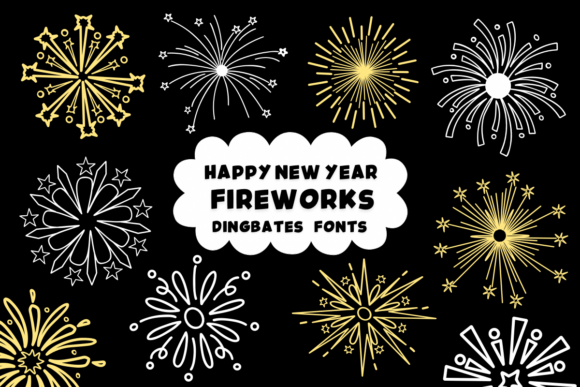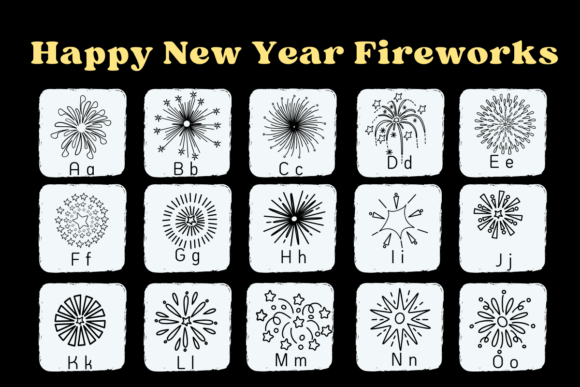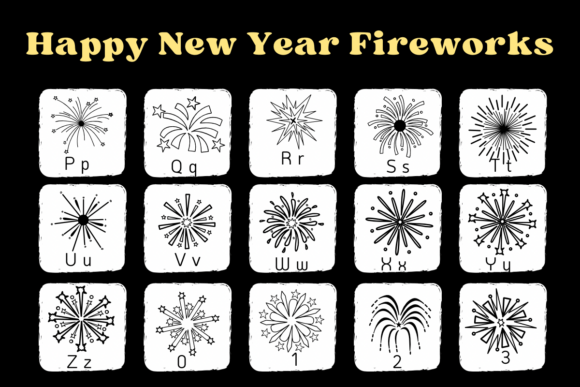
Happy New Year Fireworks Font
About the Happy New Year Fireworks Font
The Happy New Year Fireworks Font is here to transform your projects with its distinctive character and style. Happy New Year Fireworks is a fun and festive dingbat font. It features fireworks shapes and designs, perfect for celebrating New Year or any special event. Add spark and excitement to your projects with these decorative symbols!
This font excels in celebratory contexts such as invitations, greeting cards, posters, and short social media posts. Its playful nature makes it ideal for branding projects targeting a youthful or festive audience. Avoid using it for body text or lengthy passages; its decorative nature compromises readability in extended use. Consider pairing it with a clean sans-serif like Open Sans for balance, or a more elegant serif like Garamond for a sophisticated contrast.
Happy New Year Fireworks’ core personality is undeniably cheerful and energetic. It’s best suited for projects requiring a bold, celebratory visual impact, but its limitations in readability prevent its use in applications demanding extensive text.
For a more modern feel, pair it with a geometric sans-serif font like Montserrat. Remember to maintain visual hierarchy by using the dingbat font sparingly, emphasizing key words or phrases to avoid overwhelming the design.
Happy New Year Fireworks Font Usage Examples
Happy New Year Fireworks Font Example